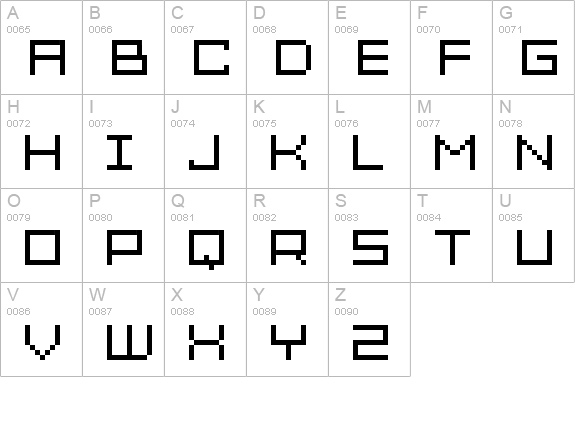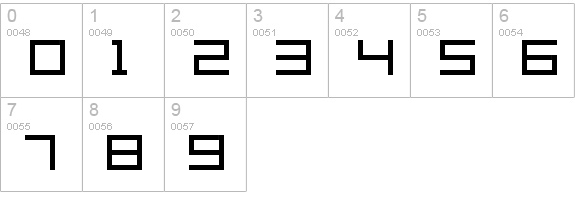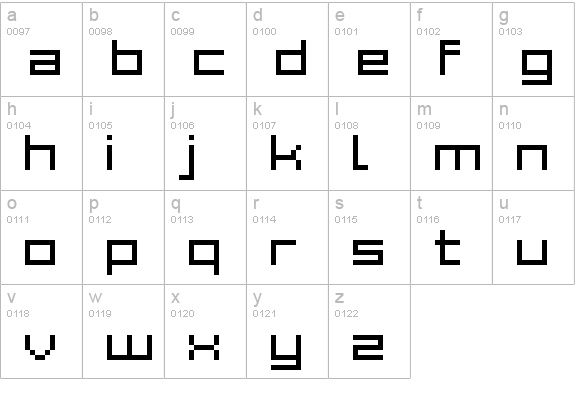
Grixel Acme 7 Wide Xtnd is a distinctive, extended-width variant in the Grixel typeface family \xE2\x80\x94 well suited to design and typography projects.
Grixel Acme 7 Wide Xtnd font is a versatile and modern typeface that blends sleek elegance with a touch of retro charm. With its bold and wide design, this font is perfect for making a statement in various design projects, from branding to posters to web design. The clean lines and extended width of the characters give Grixel Acme 7 Wide Xtnd font a unique and contemporary look that is sure to capture attention. What's even better is that this font is available for free download at FontsMarket.com, making it easily accessible for designers and creatives looking to add a fresh and dynamic touch to their work. Whether you're creating a striking headline or crafting a stylish logo, Grixel Acme 7 Wide Xtnd font offers endless possibilities for creative expression. Download it today and elevate your designs with this eye-catching and modern typeface.